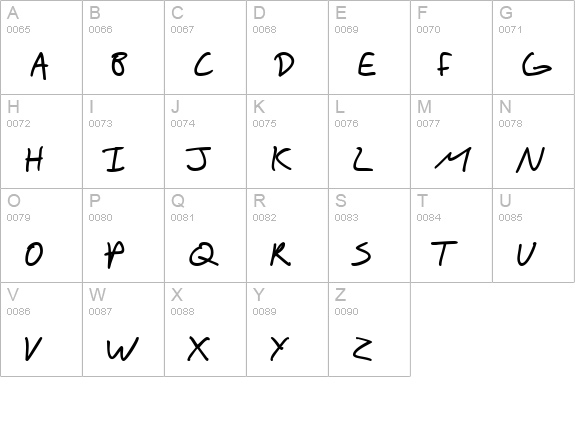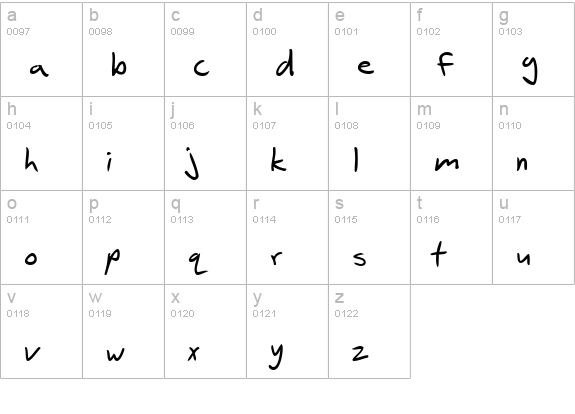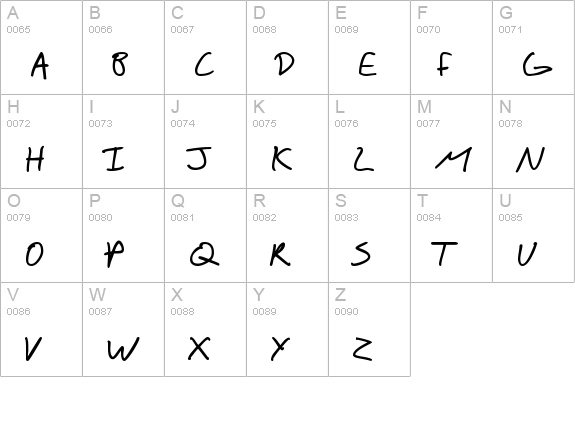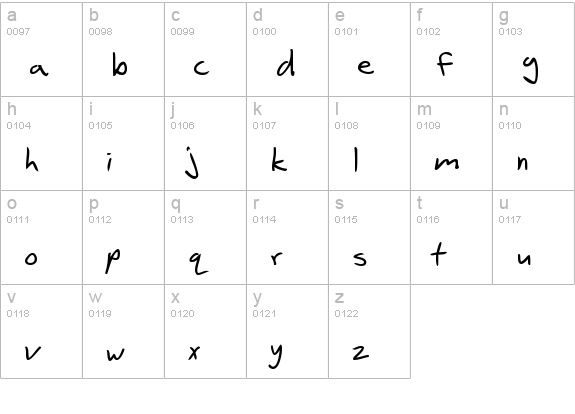
SF Scribbled Sans Bold is a strong, high-contrast variant in the SF typeface family \xE2\x80\x94 well suited to headlines, attention-grabbing titles, and strong calls-to-action.
Introducing SF Scribbled Sans Bold, a captivating and dynamic font that effortlessly combines the edginess of scribbled aesthetics with the sleekness of a bold sans-serif typeface. This font is perfect for those seeking to make a bold statement with their designs, whether it be for posters, logos, or eye-catching headlines. What sets SF Scribbled Sans Bold apart is not only its visually striking appearance but also its accessibility. It is available for free download at FontsMarket.com, allowing designers of all levels to easily incorporate this unique font into their projects without breaking the bank. The carefully crafted characters of SF Scribbled Sans Bold exude energy and creativity, adding a touch of excitement to any design. With its deliberate imperfections and spontaneous strokes, this font captures the essence of hand-drawn artistry, giving your work a distinct and captivating look. Whether you're looking to create a rebellious and gritty design or a playful and energetic composition, SF Scribbled Sans Bold is the perfect choice. Its versatility allows it to adapt to various design styles and themes, making it a valuable asset in any designer's toolkit. Unleash your creativity and make a lasting impression with SF Scribbled Sans Bold. Download this remarkable font for free at FontsMarket.com and let your designs speak volumes with its bold and expressive typography.